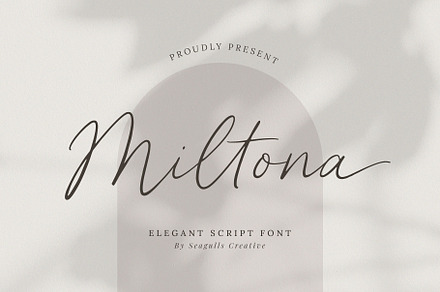
Miltona Elegant Script Font
An elegant script with fine strokes and restrained flourishing, drawn for settings where delicacy matters more than presence.
Fine scripts need careful size handling, since the thin strokes are the first thing lost when a design is scaled down or printed on absorbent stock.
- Fine stroke construction
- Alternates and ligatures
Where it works
- Wedding and event stationery
- Beauty and fragrance packaging
- Logo and monogram work
- Print and web design